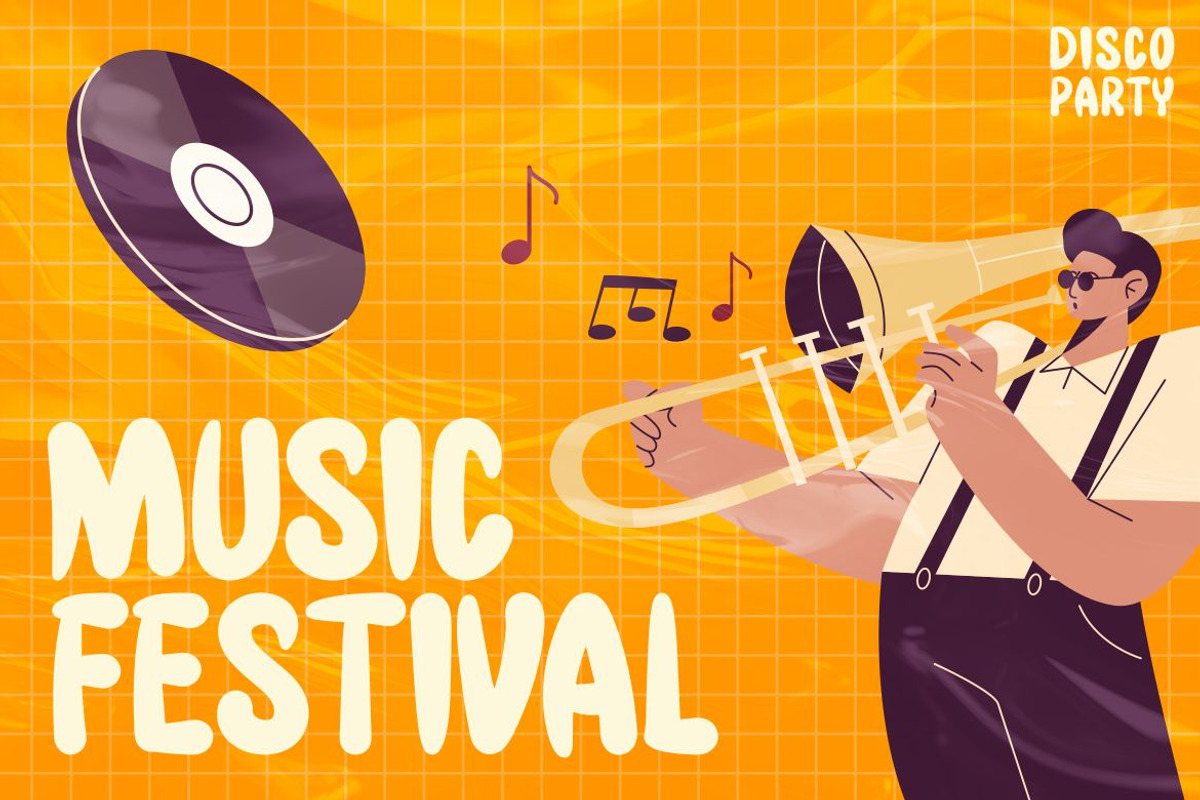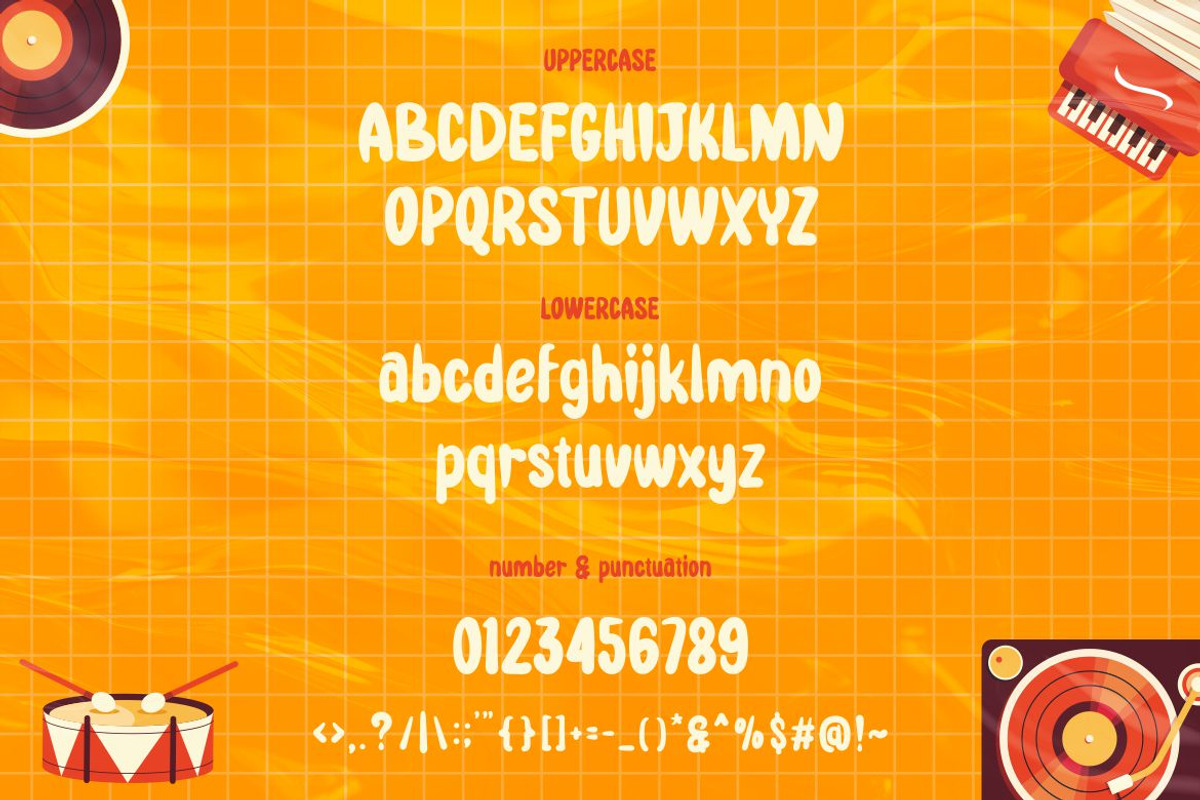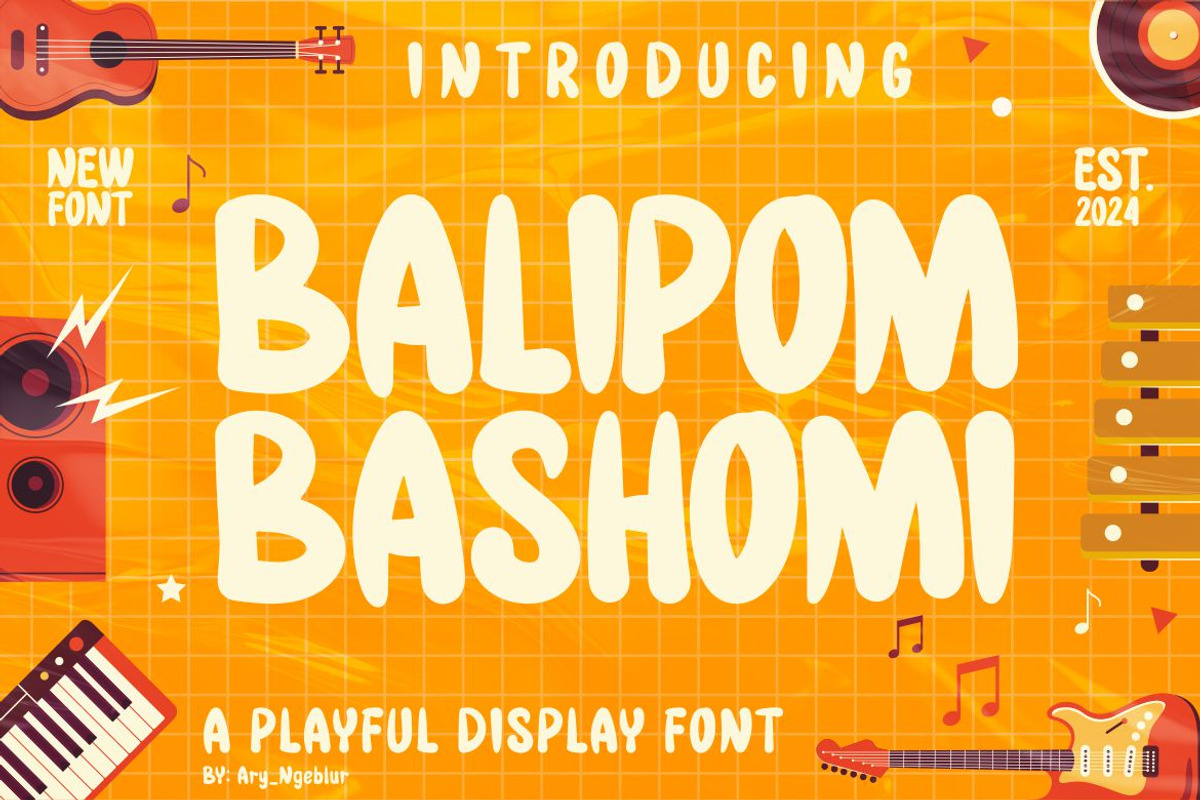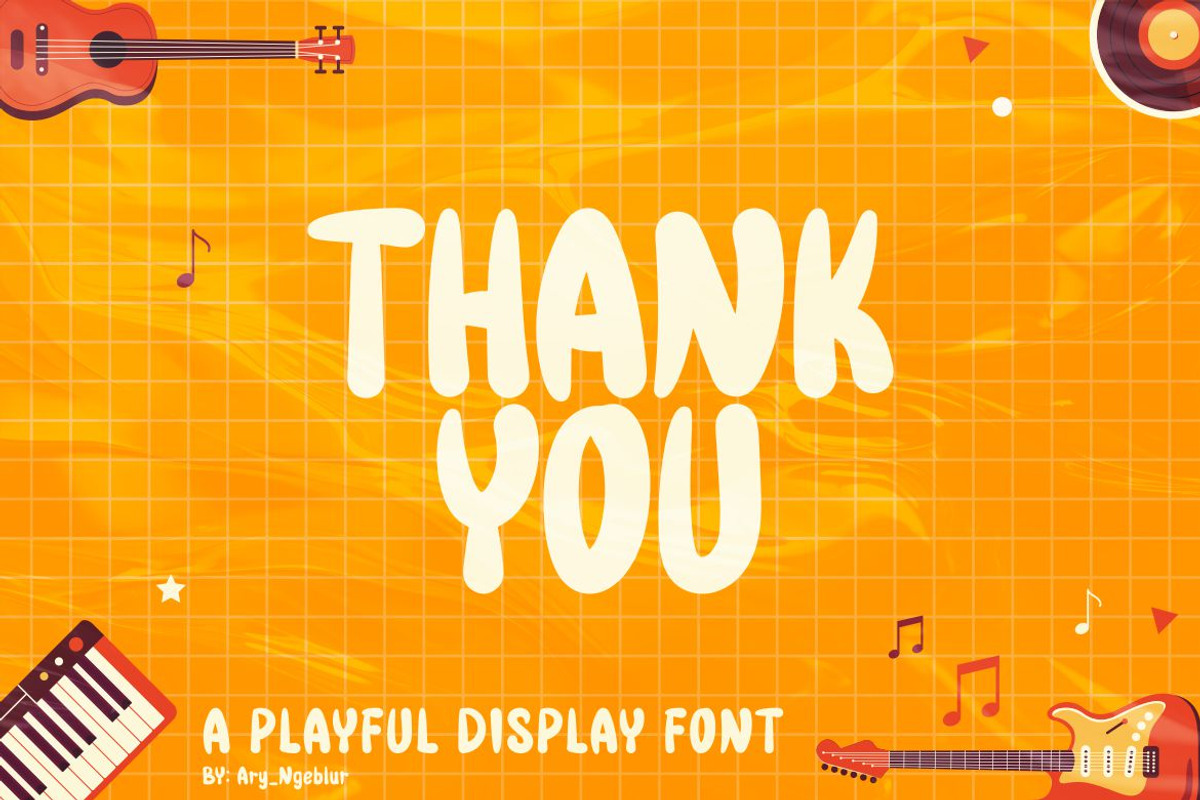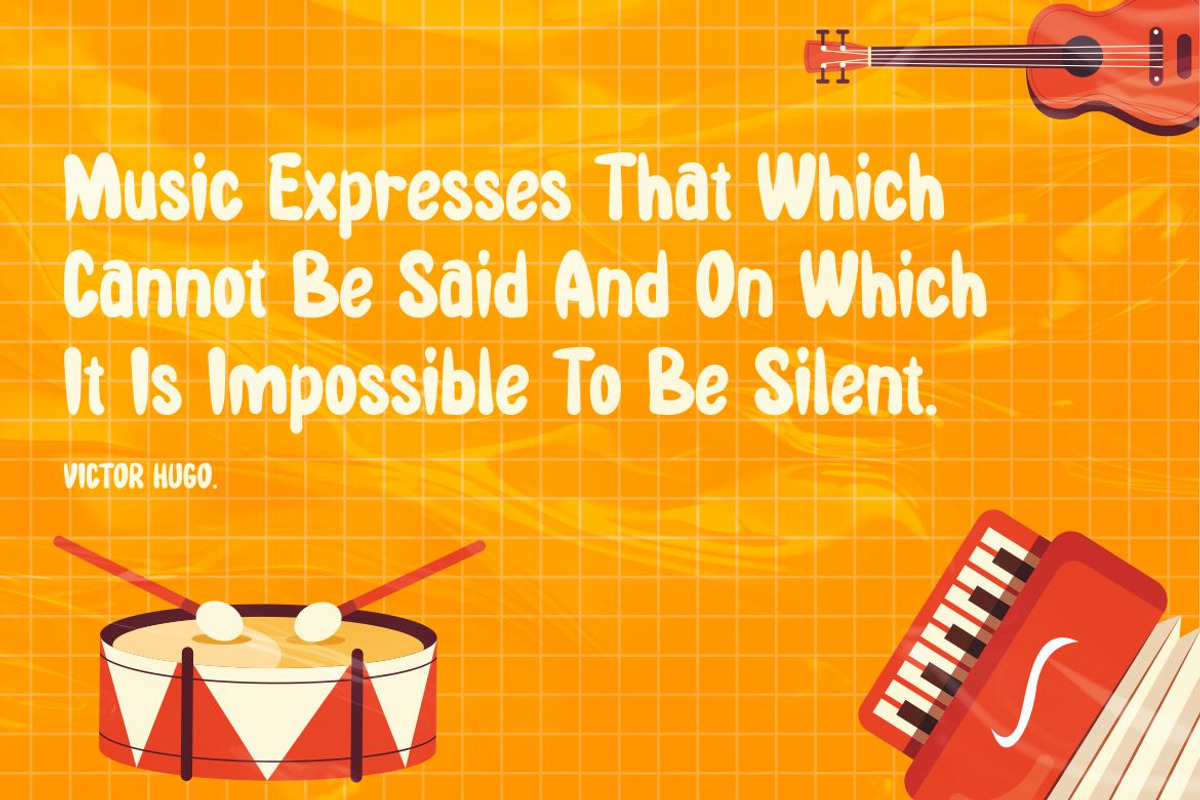
Balipom Bashomi - Display Font
Introducing Balipom Bashomi , a cool and elegant Playful Display Font. Elegant font feel. This font gives you a beautiful and modern atmosphere. suitable for posters, book covers, cards, merchandise, etc.